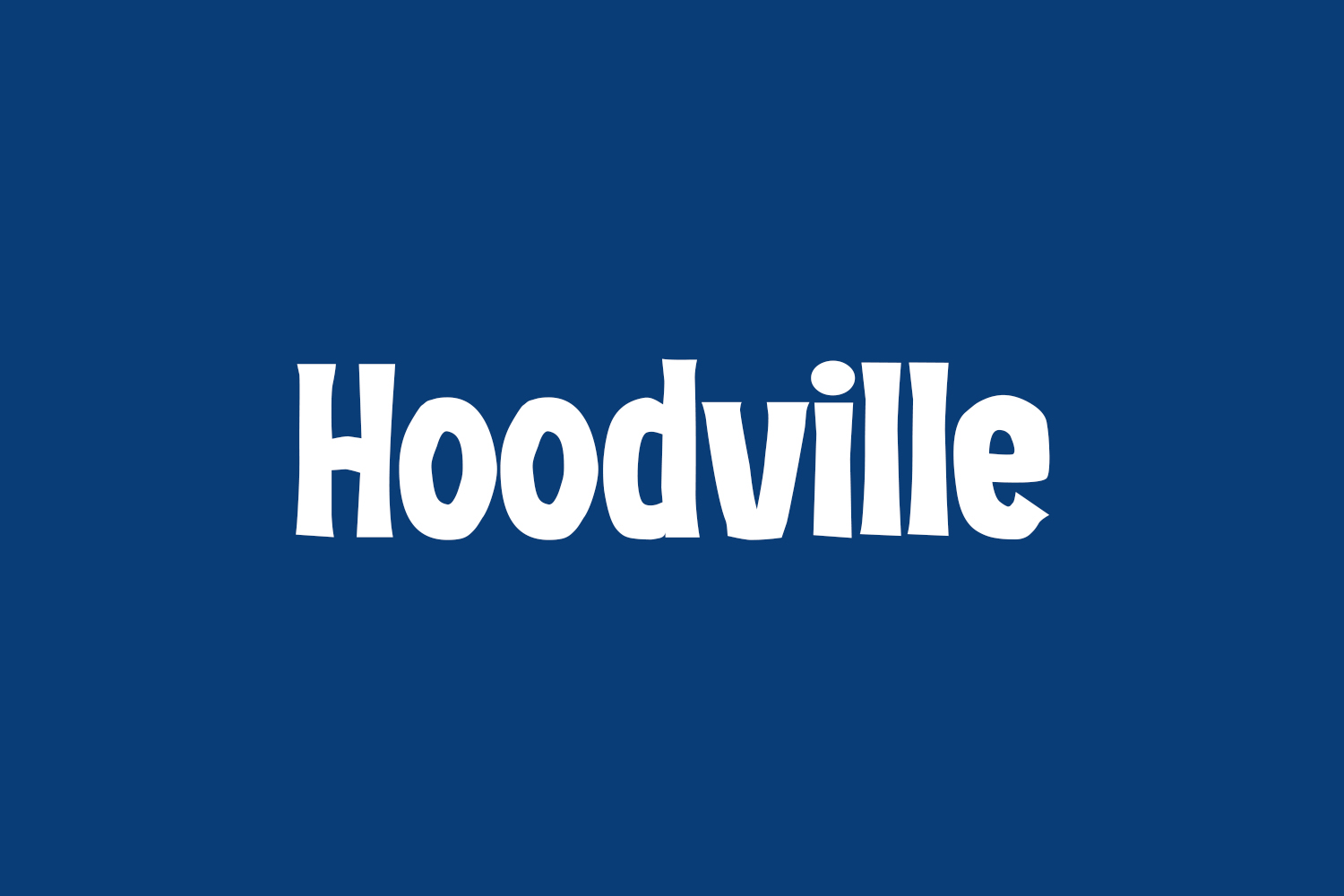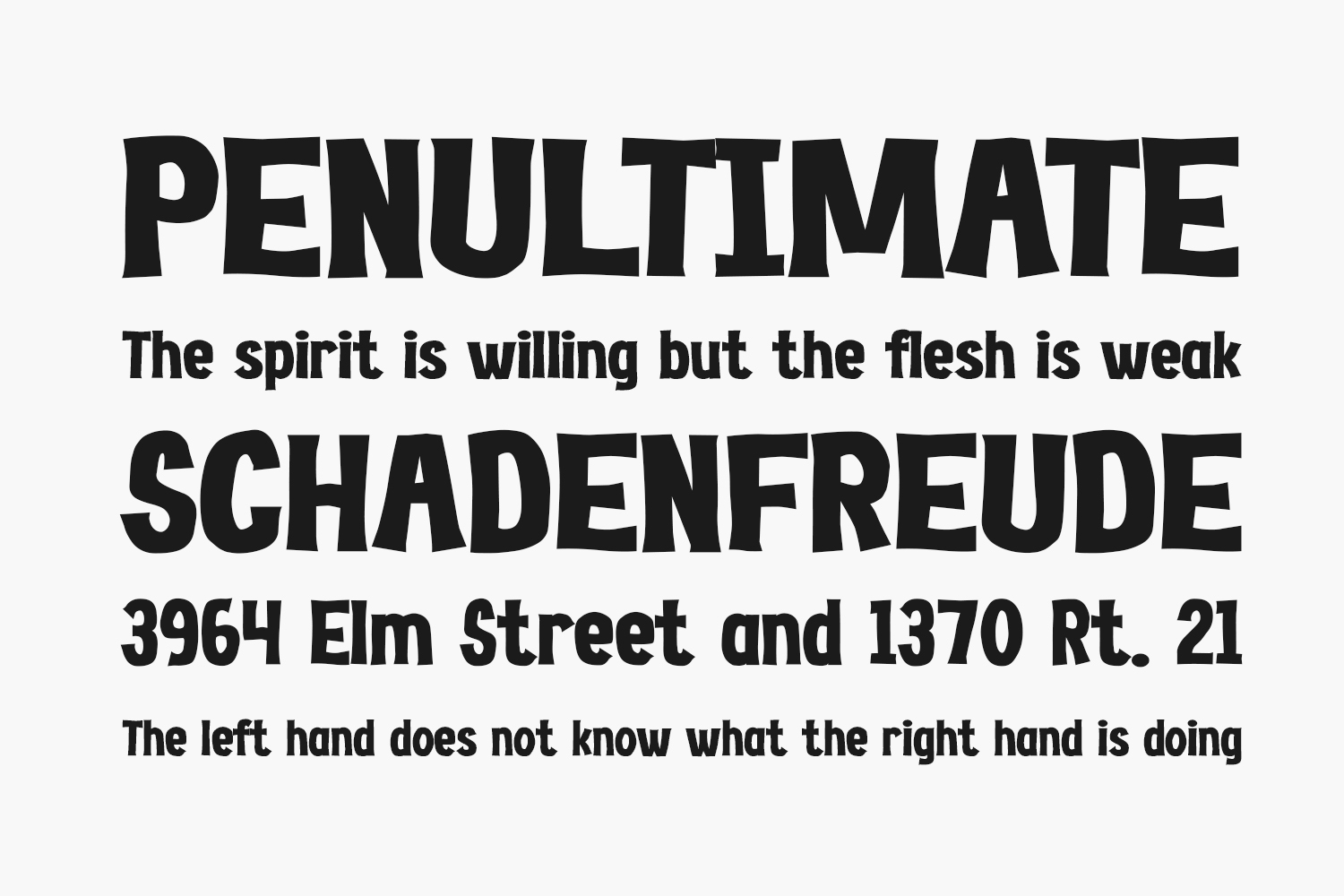
Hoodville Free Font is a captivating horror display font that strikes a perfect balance between fun and fright. Incorporate it into your creative projects and begin crafting delightfully spooky designs. Hoodville Free Font is free for personal use only. Please purchase the full version for commercial use.
Designed by Pinisiart